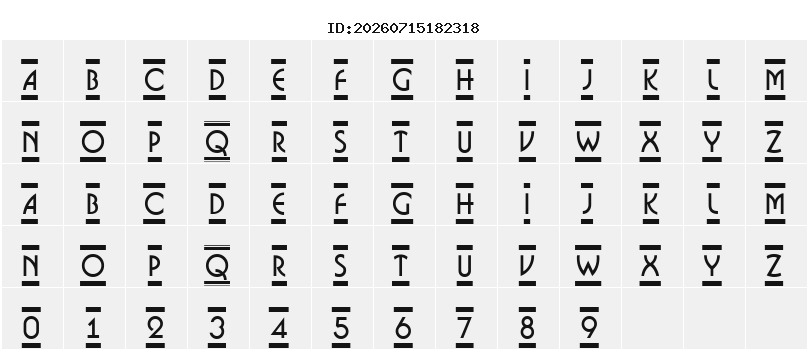
a_BosaNovaDc2Fr Preview
• Font Name: a_BosaNovaDc2Fr
• Font ID: a_BosaNovaDc2Fr
• Full Font Name: a_BosaNovaDc2Fr
About a_BosaNovaDc2Fr.ttf
a_BosaNovaDc2Fr.ttf is a modern, elegant sans-serif font designed for ultimate readability and visual harmony. Perfect for branding, headlines, web design, and print materials.